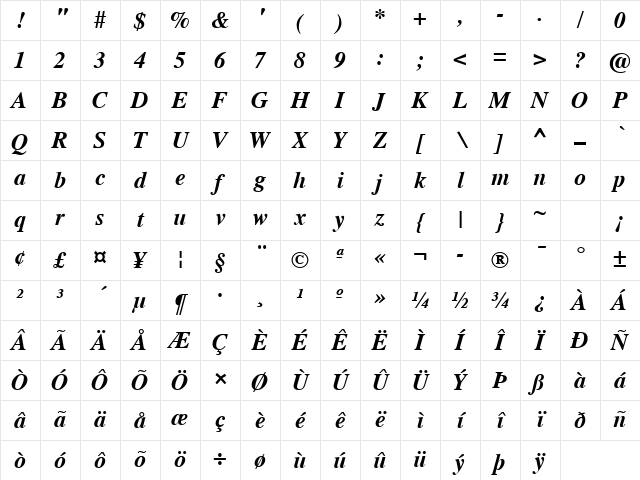
Roman Bold Italic
Design Context for Roman
Roman is a composed and adaptable typeface that performs quietly and consistently across a wide range of design contexts. The slanted form adds forward momentum and visual energy. Its bold stroke weight gives it real presence on the page.
Pro Tip: Use Roman for emphasis, pull quotes, and subheadings where its slanted energy can add rhythm to the layout.